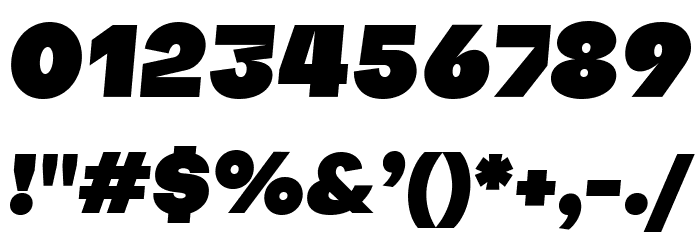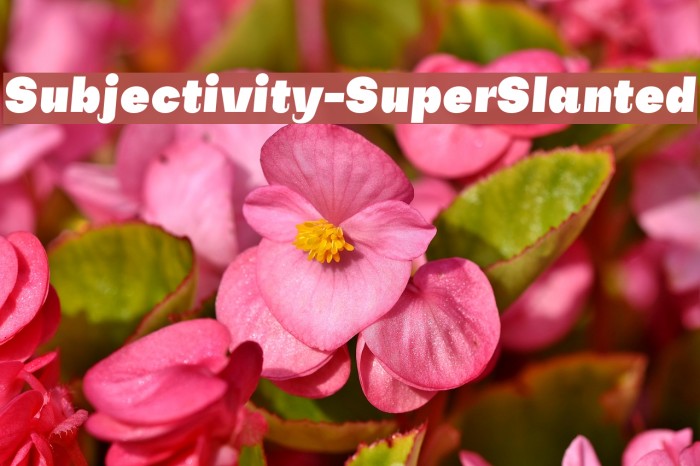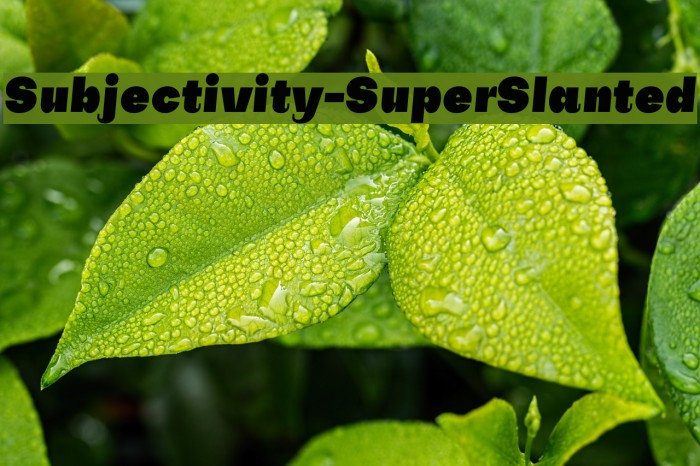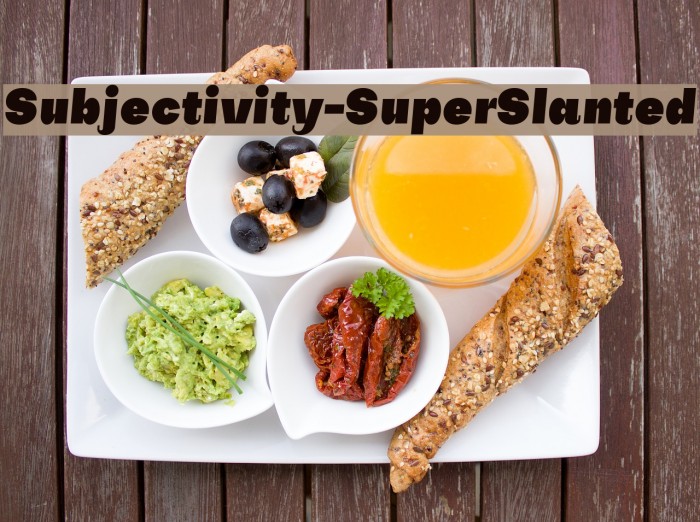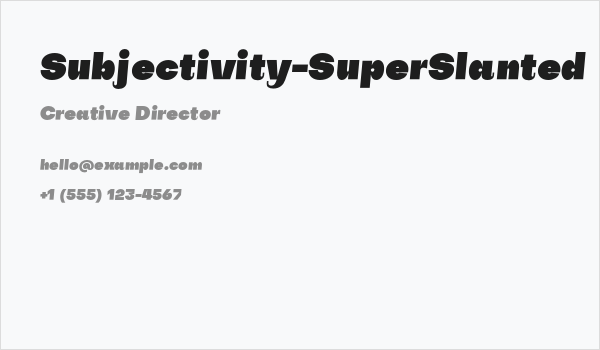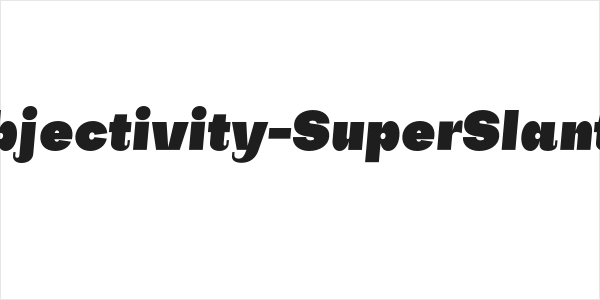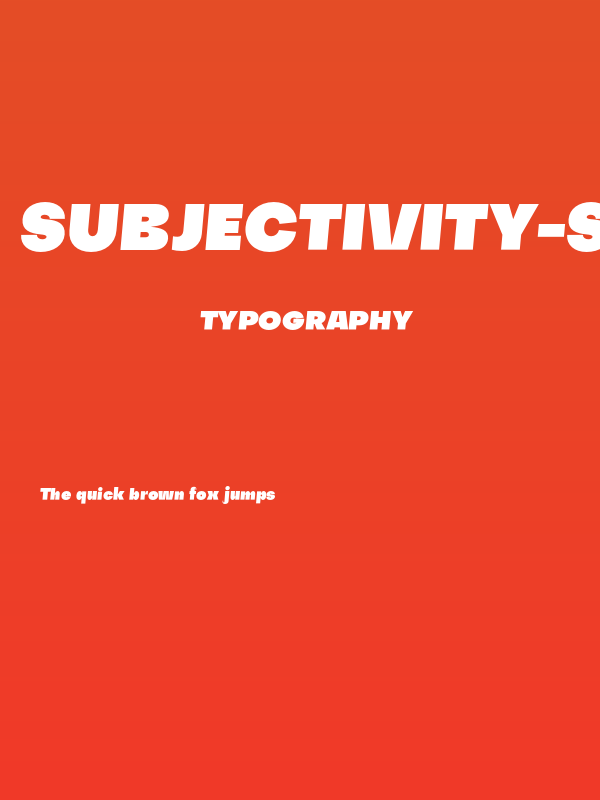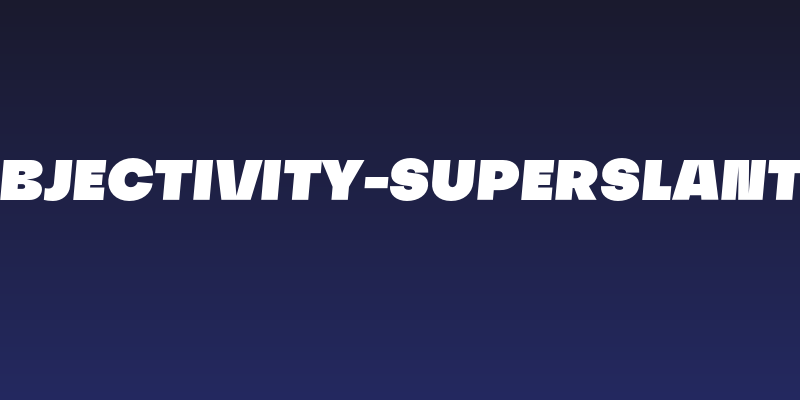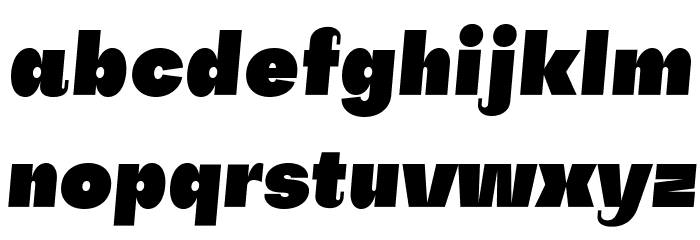
Subjectivity-SuperSlanted Font
Subjectivity-SuperSlanted Description
This bold and dynamic font features a strong, slanted design that conveys a sense of movement and energy. The uppercase and lowercase letters are designed with a consistent slant, giving the typeface a cohesive and modern appearance. The characters are bold and impactful, making them ideal for grabbing attention. The numbers and special characters maintain the same stylistic approach, ensuring uniformity across all text elements. The font's thick strokes and minimal contrast between thick and thin lines contribute to its powerful visual presence.
| Proposed Projects | Ideal for sports branding, dynamic posters, eye-catching headlines, and modern advertising campaigns. |